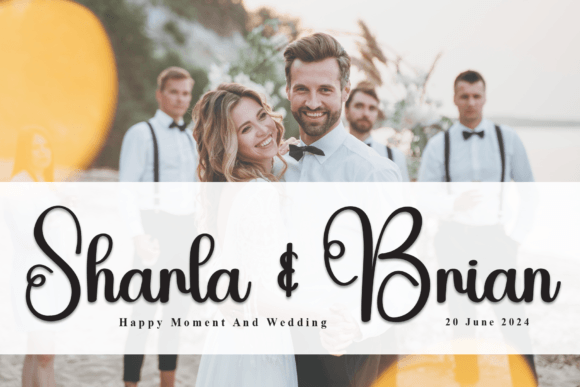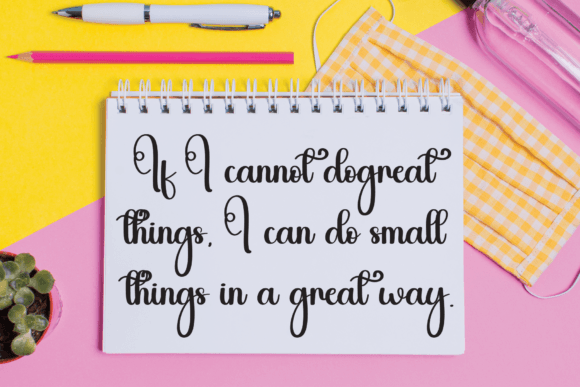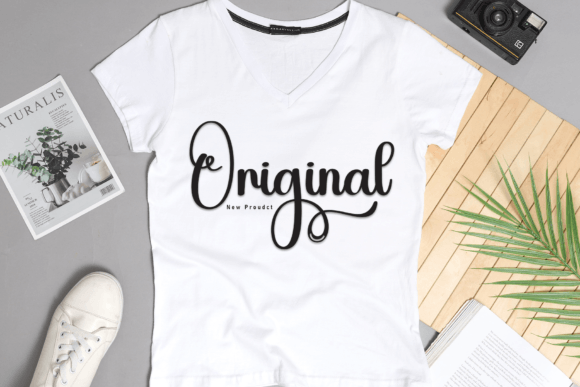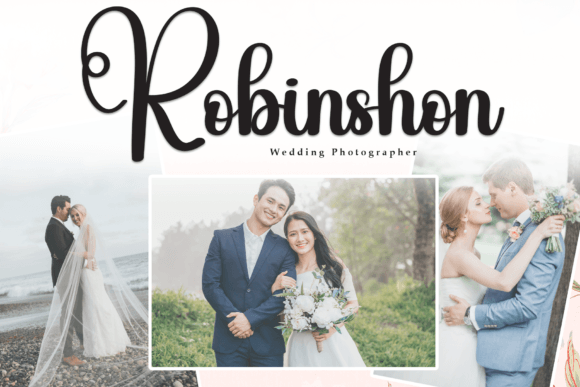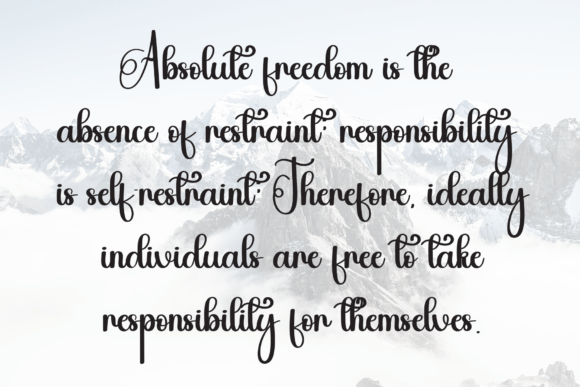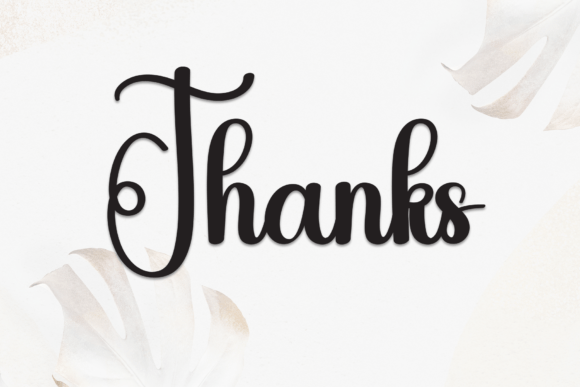
The Perfect Touch of Whimsy: Elegant Font
Have you ever stared at a blank page, trying to decide on the perfect font to capture the essence of your creative vision? I know I have! The blank page can be intimidating, but it’s also a blank canvas waiting for your unique touch. For me, it’s the moment when I stumble upon the perfect font that sparks the creative process.
That’s exactly what Elegant Font does – it adds a touch of whimsy and charm to any design. This sweet and friendly handwritten font is ideal for writing wedding invitations, cards, or any other design that needs a fun and playful twist. Elegant Font is a valuable tool for designers looking to add a personal and emotional connection to their work.
With Elegant Font, you can create designs that are both elegant and playful, making it a must-have in any designer’s toolkit. Whether you’re a seasoned pro or just starting out, this font is sure to bring a smile to your face and inspire your creativity.
Elegant Font Key Features
- Unique Characteristics: Elegant Font features a unique blend of modern and classic elements, with intricate details and subtle flourishes that add a touch of sophistication to any design.
Elegant Font Review
Overall, I’m impressed with the Elegant Font. Here are some aspects that really shine: ✨
- The font’s aesthetic is, well, elegant. It’s perfect for high-end branding, luxury products, and anything that requires a touch of sophistication.
- The font’s scalability is excellent, making it suitable for both small and large text sizes.
- The font’s legibility is clear and easy to read, even at smaller sizes.
- It supports a wide range of languages, making it a great choice for multilingual designs.
However, there are some limitations to consider: ⚠️
- The font may not be as readable in certain screen resolutions or devices with low pixel density.
- The font’s elegance comes at the cost of its expressiveness – it may not be the best choice for conveying strong emotions or ideas.
- Some users may find the font too formal or corporate, which may not be suitable for all design projects.
In conclusion, the Elegant Font is a solid choice for designs that require sophistication and elegance. While it may have some limitations, its strengths make it a great addition to any designer’s toolkit.
Elegant Font is ideal for:
1. Wedding invitations and stationery
2. Luxury branding and marketing materials
3. High-end publications and magazines
4. Formal events and announcements
Q: What is the font’s technical specifications?
Elegant Font is a high-resolution font with the following technical specifications:
- Font style: Sans-serif
- Font weight: Light, Regular, Bold, Black